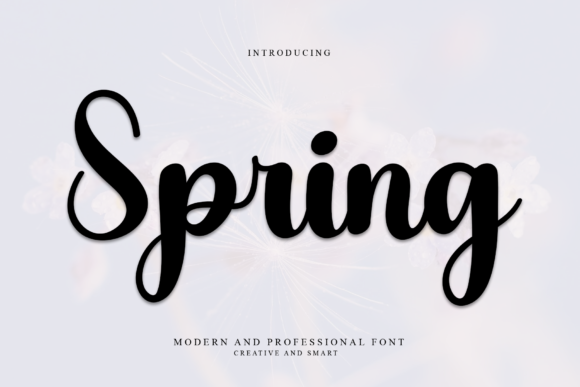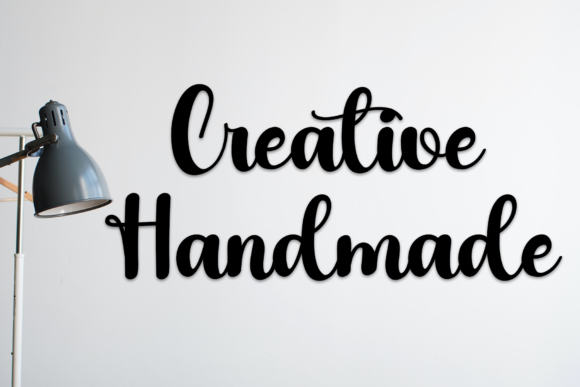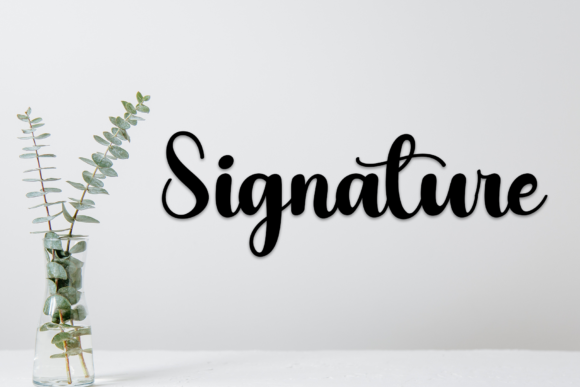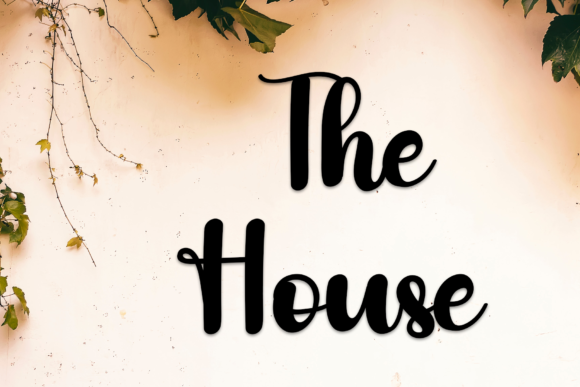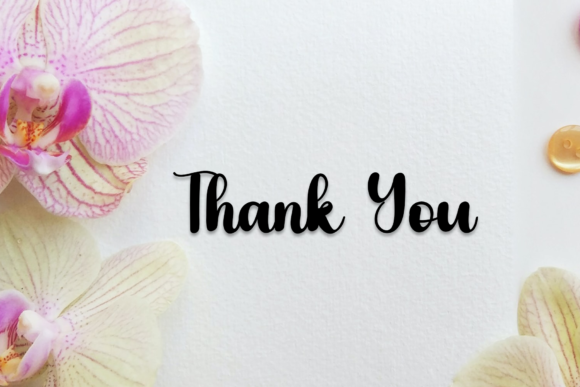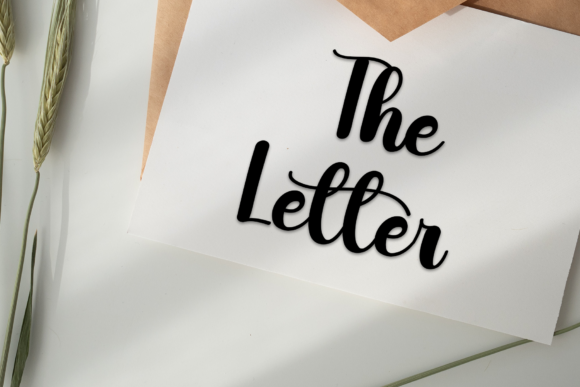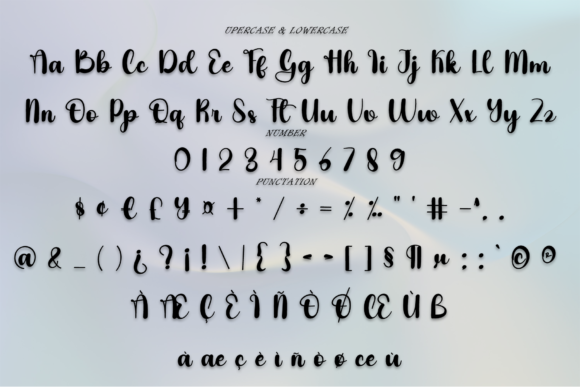
Spring Font
About Spring Font
Introducing “Spring,” a delicate handwritten font meticulously crafted to bring a cool and unique design to your creative projects. Beyond being a mere typeface, Spring serves as a carefully designed tool that adds a touch of personality and creativity to your writing. Whether you’re composing heartfelt letters, designing invitations, labeling food products, or creating eye-catching titles, Spring is the perfect choice for infusing your work with a distinctive and stylish charm.
The delicacy of Spring lies in its handcrafted design, imparting a sense of uniqueness and authenticity to each character. Picture using this font to craft warm and inviting letters, where the handwritten touch adds a personal and friendly feel. Envision it on invitations, setting a cool and laid-back tone for your events. Whether applied to food product labels or titles for creative projects, Spring becomes a versatile companion, effortlessly adding that extra layer of character.
Every stroke of Spring reflects meticulous craftsmanship, ensuring a cohesive and visually appealing look. Its delicate design strikes a balance between elegance and informality, making it suitable for a variety of creative endeavors.
Choose Spring as the font that delicately transforms your writing into a cool and unique design. Let its carefully crafted strokes enhance the personal touch of your letters, invitations, and more. Allow Spring to be the creative element that brings a distinctive charm to your projects, making them memorable and visually captivating.